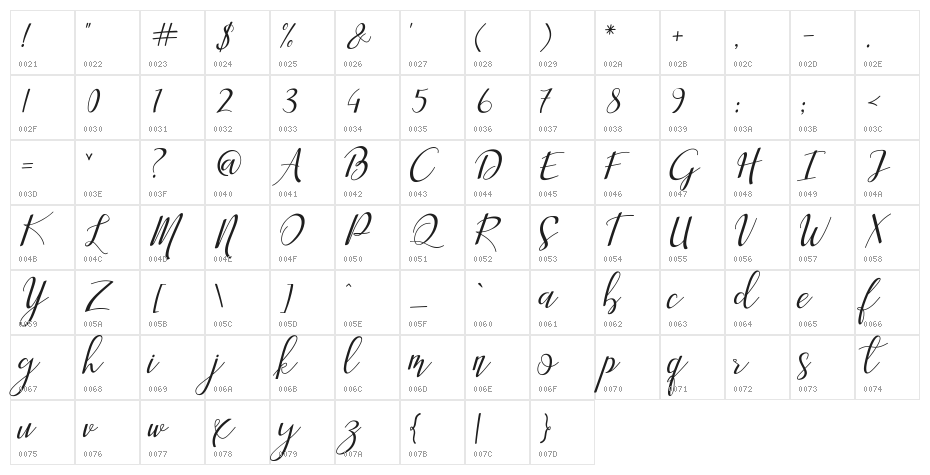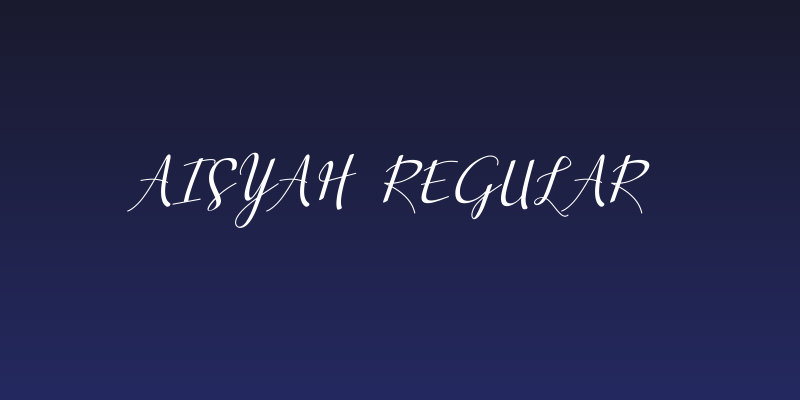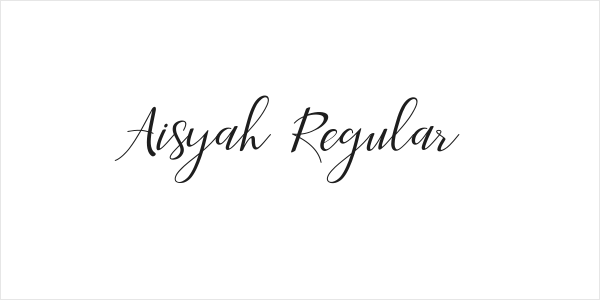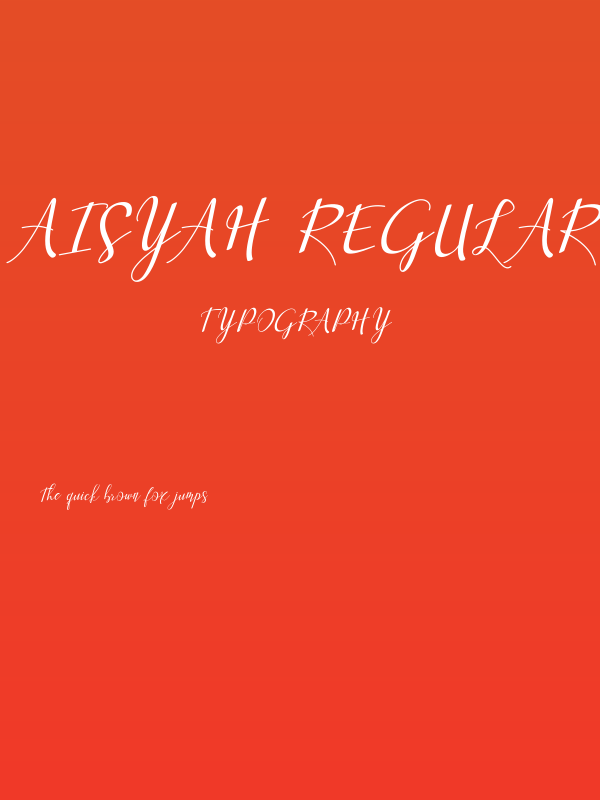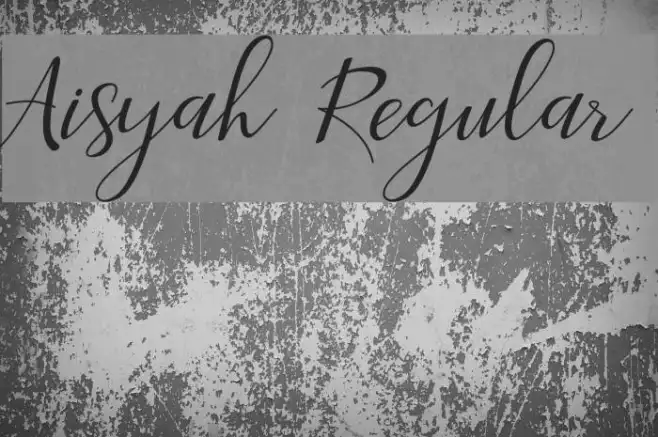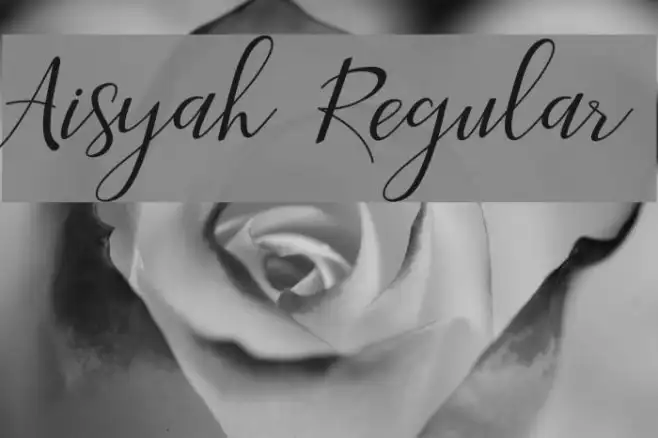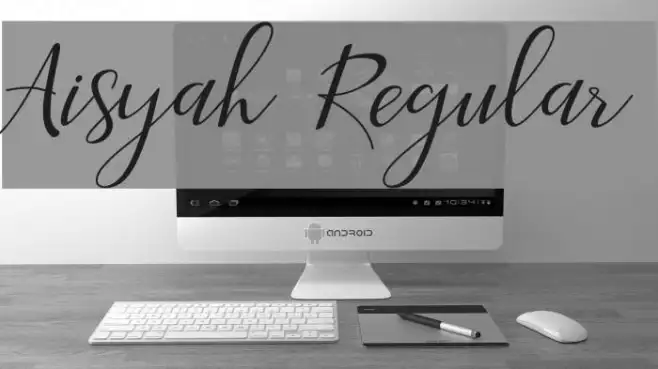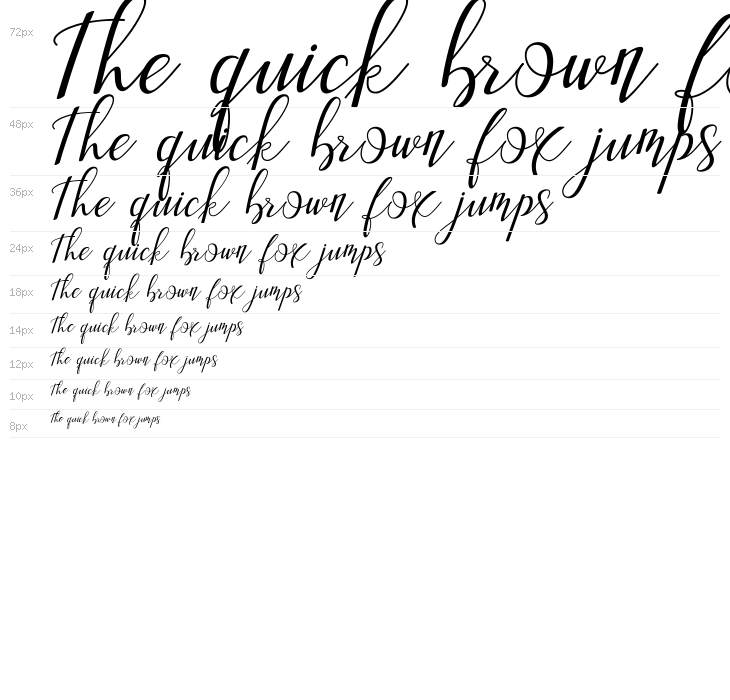
Aisyah Regular Font
Aisyah Regular Description
This font features an elegant and flowing script style, characterized by its smooth, cursive strokes and graceful curves. The uppercase letters are tall and slightly slanted, giving a sense of sophistication and fluidity. The lowercase letters are connected, enhancing the script's natural, handwritten appearance. The numerals are consistent with the overall style, maintaining the same flowing and elegant form. Special characters are integrated seamlessly, adding to the font's versatility. The overall design exudes a sense of elegance and charm, making it suitable for formal and decorative purposes.
| Proposed Projects | Ideal for wedding invitations, elegant branding, greeting cards, and decorative projects. |